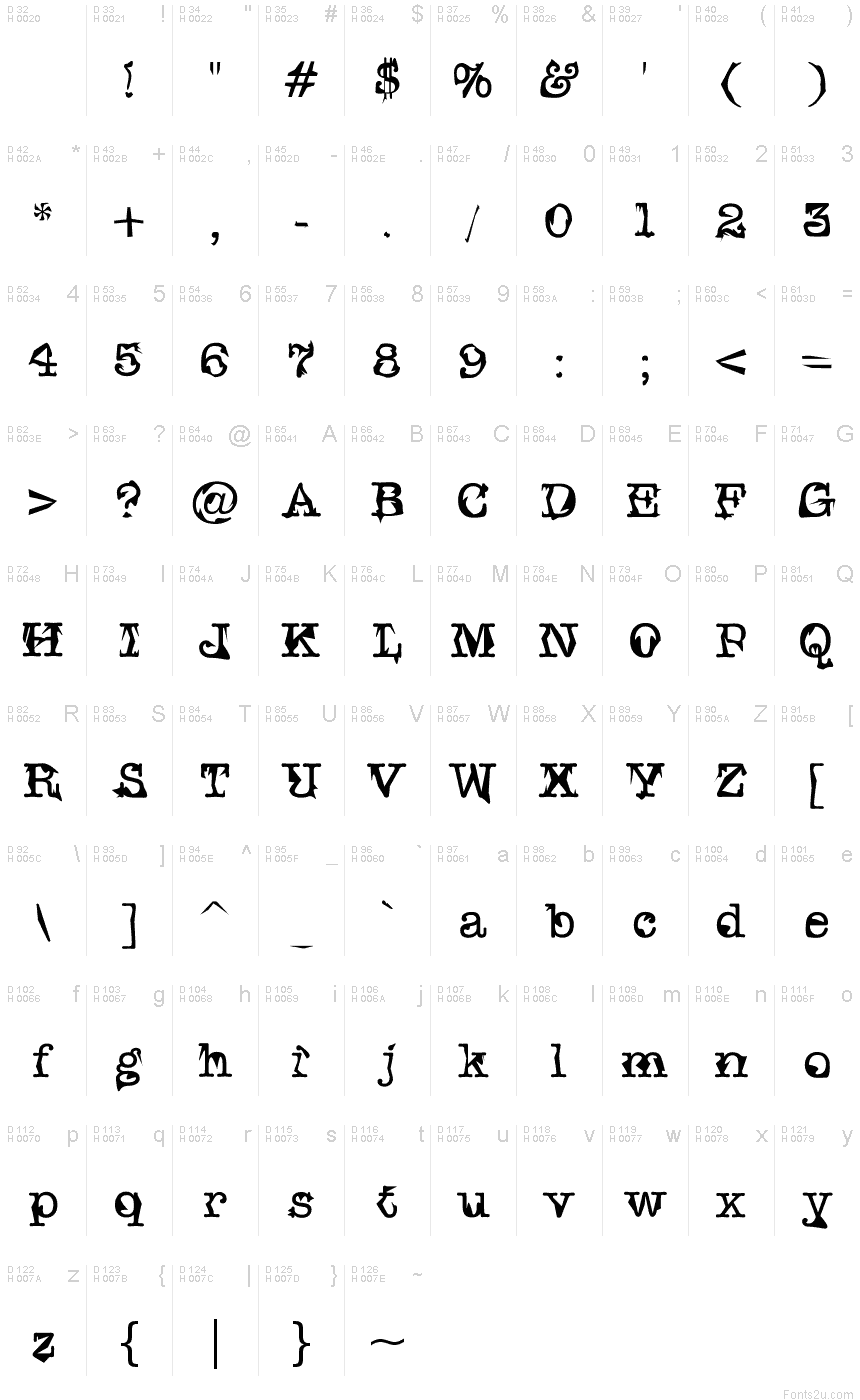
Korong
Korong font by Etherealcat Inc. is a free distorted display typeface with a wonderfully warped sense of rhythm. Its chunky, inky strokes bulge and taper in unexpected places, like letters melted and reset while still soft. The result feels handmade and a little mischievous—somewhere between a storybook gone wrong and a quirky underground poster.
Using Korong, your titles instantly grab attention with a wavy, off-kilter energy that still reads clearly at larger sizes. This free font works beautifully for gig posters, zines, indie game logos, horror-comedy titles, Halloween flyers, and experimental album covers. Try pairing Korong with a clean geometric sans in small text to let its strange, elastic forms stay center stage.